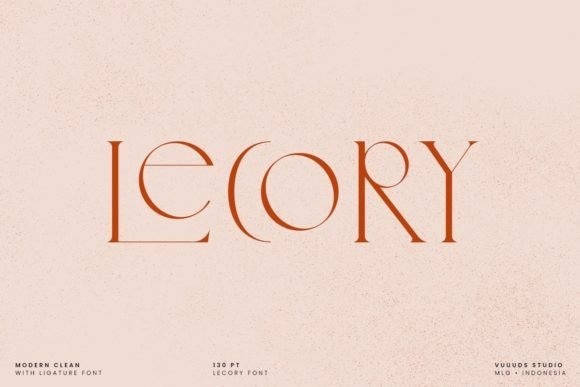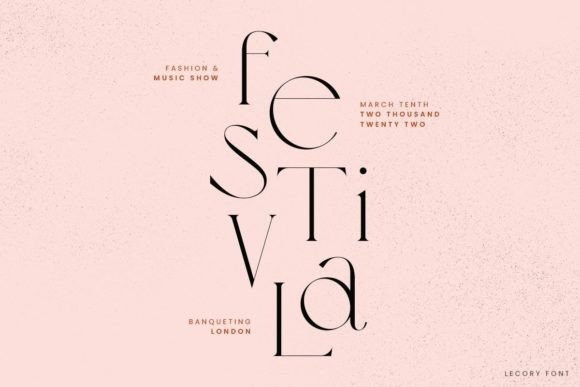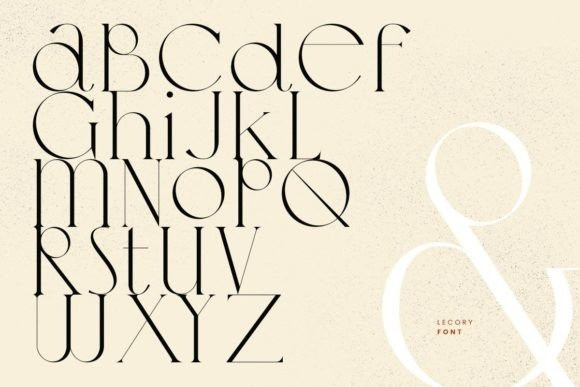
Lecory Font
Introducing Lecory Font!
Lecory is a modern serif font. Every single letter has been carefully crafted to obtain impeccable modern letters that fit every occasion.